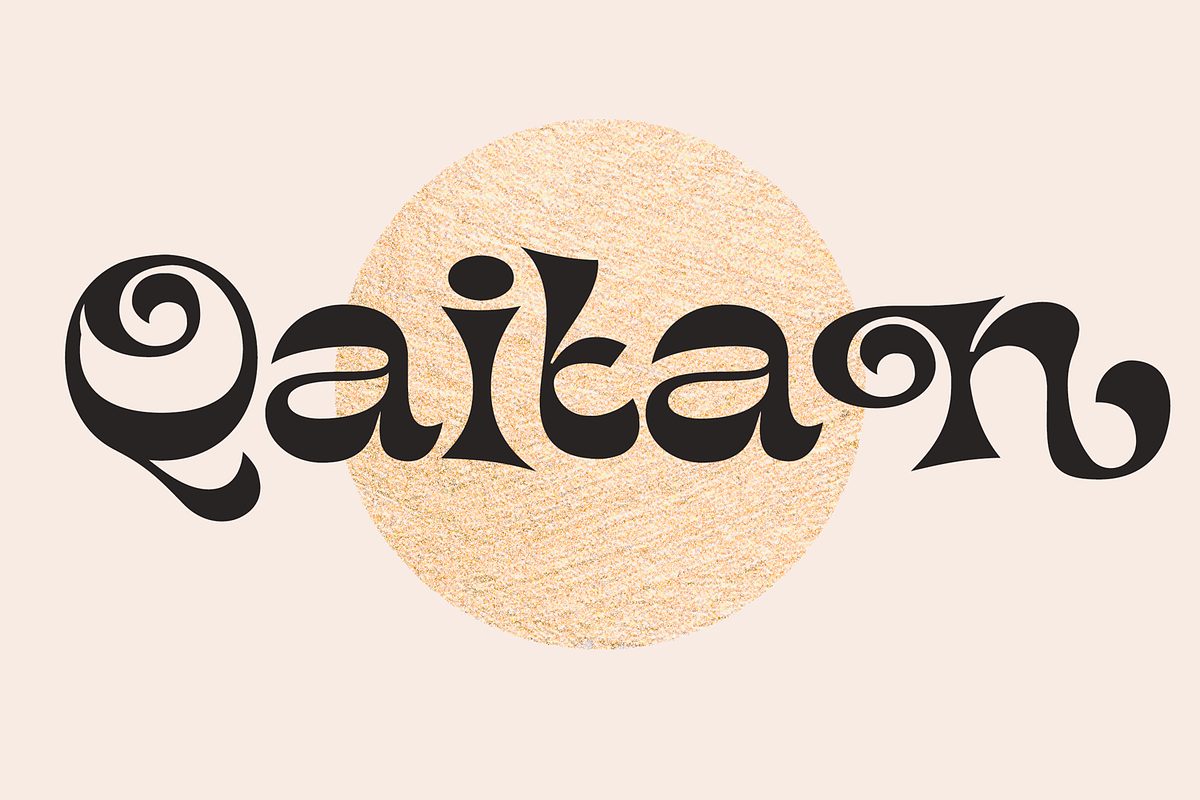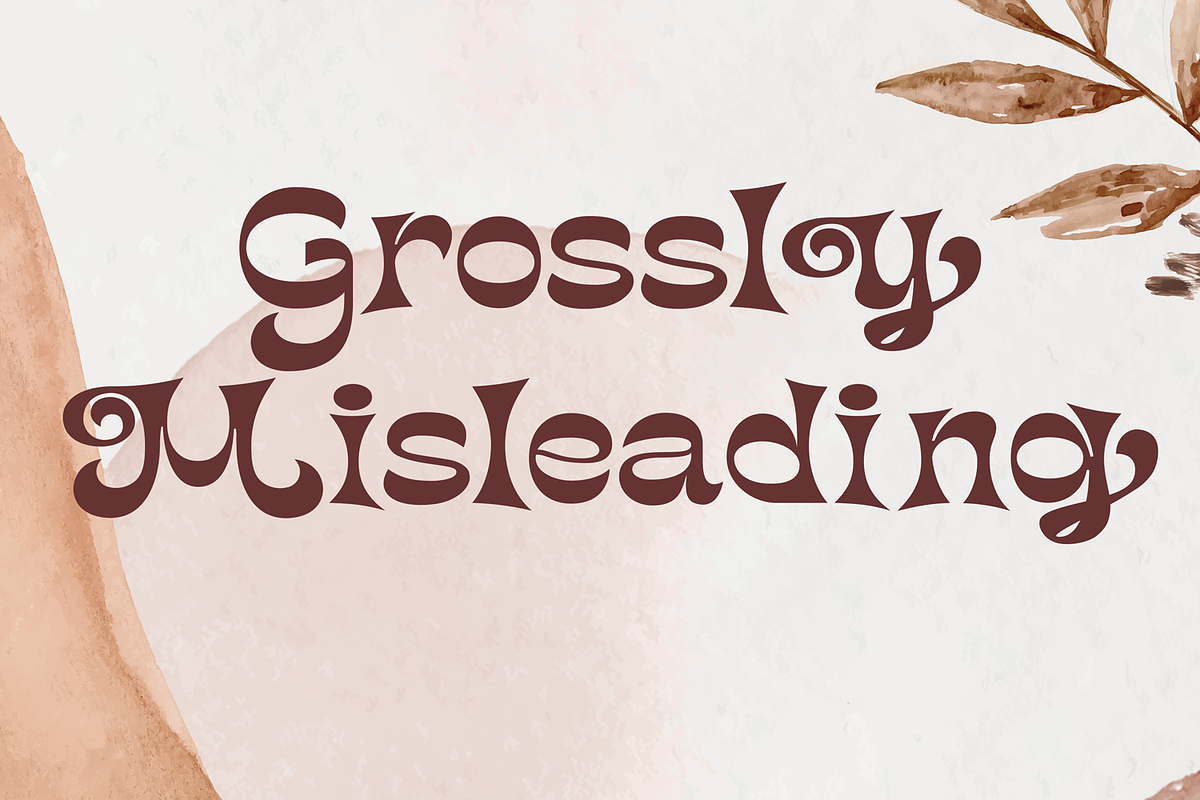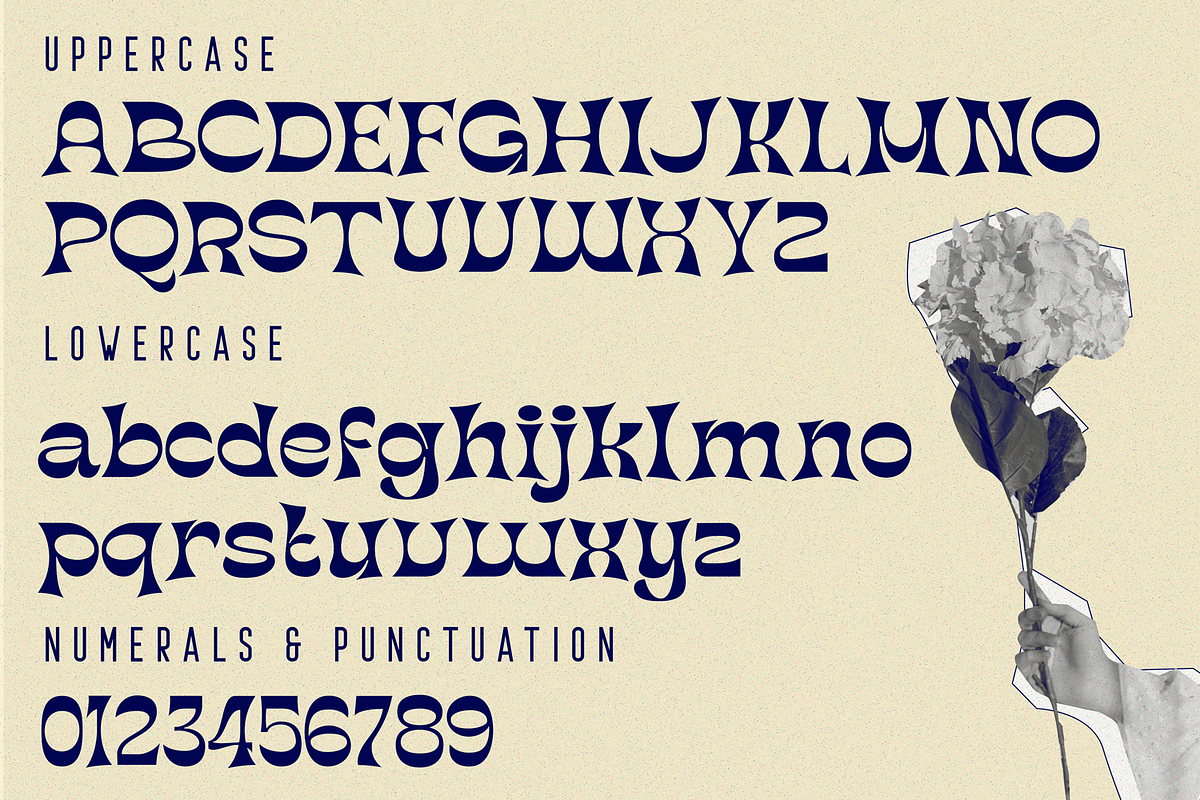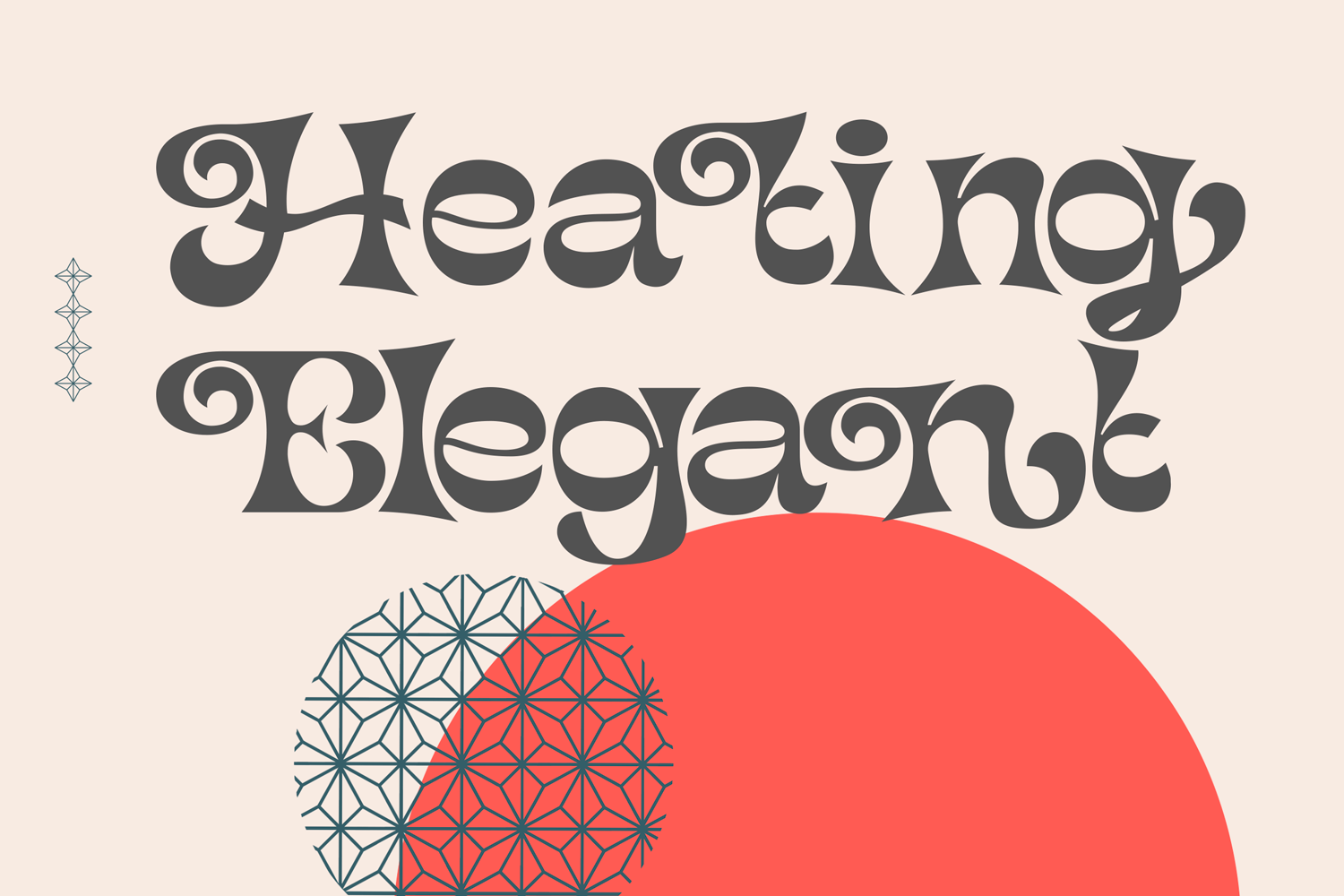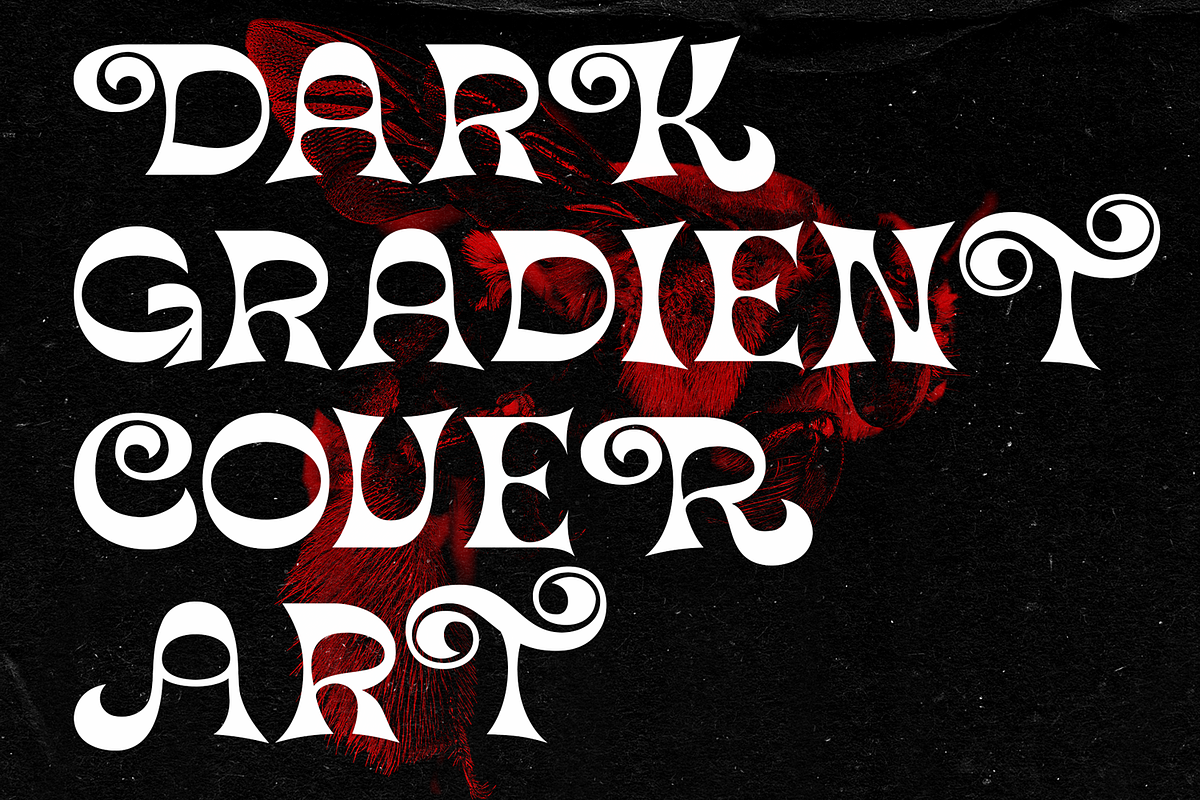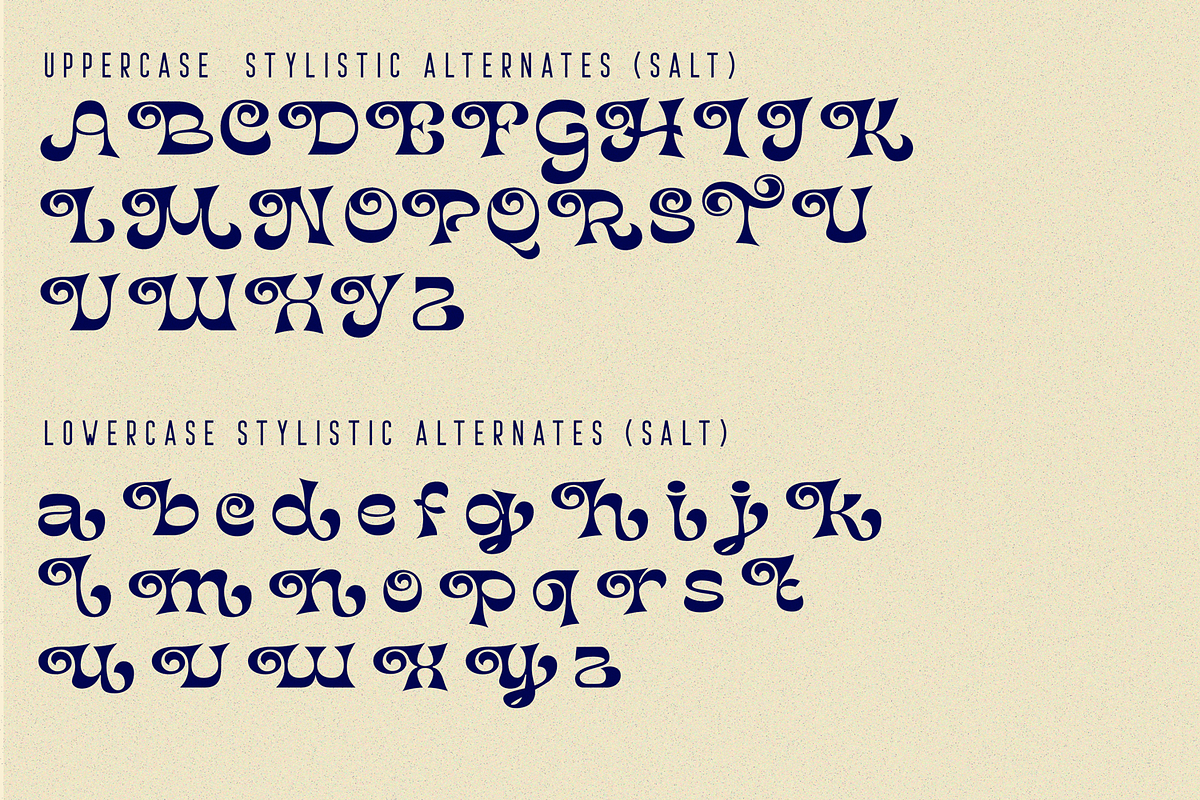
Heating Elegant Font
Heating Elegant Font is a bold casual and playful retro serif typeface that you can combine to get awesome project with beautiful ornament bonus. This font is PUA encoded which means you can access all of the glyphs and swashes with ease in photoshop, illustrator and through your character map panel.
This font is perfect for logos, quotes, posts, blog posts, instagram post - stories, magazine, branding projects, wedding invitations, and much more.. We recommend using Adobe Illustrator or Photoshop.